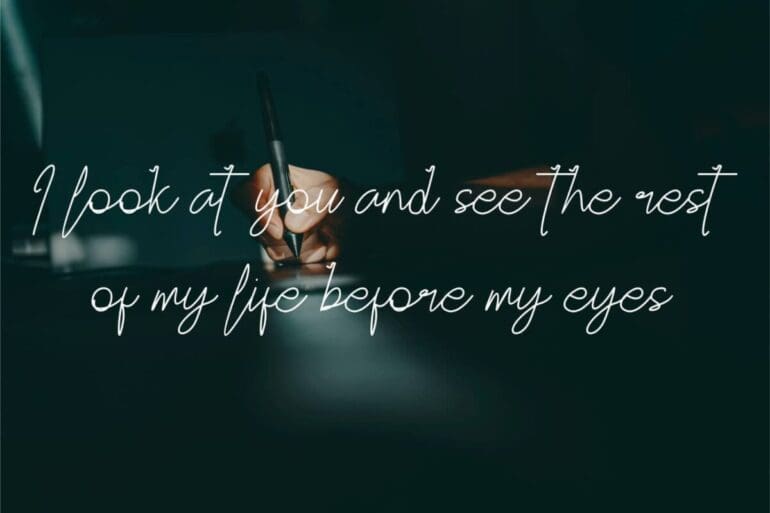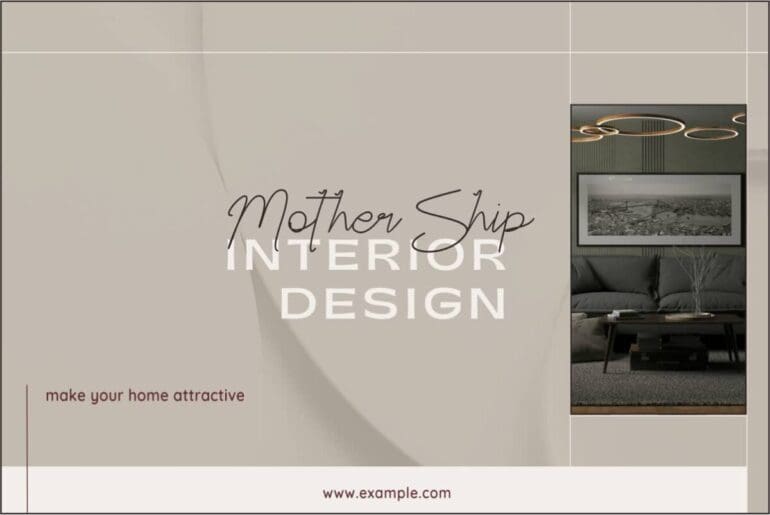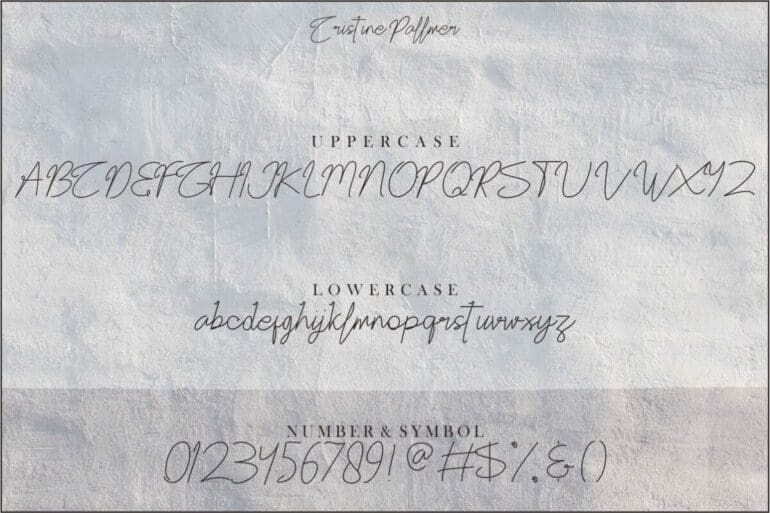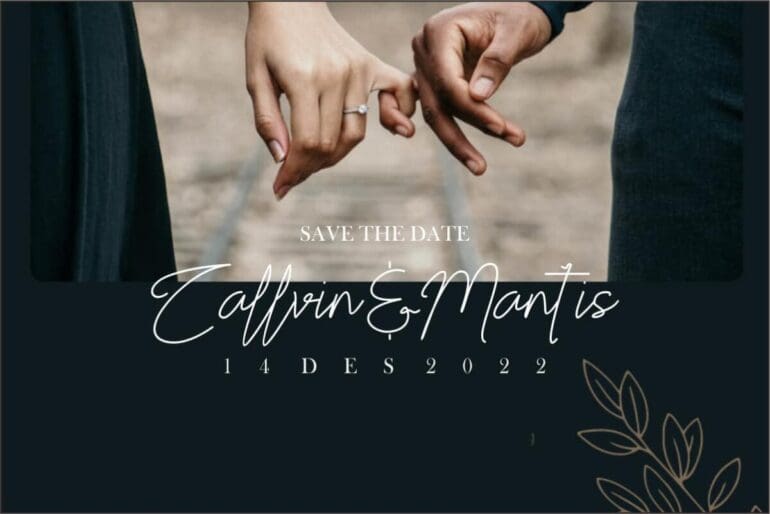
Christine Pallmer Font
Christine Pallmer this is Signature font. It’s perfect for your design such as logo, branding, graphic design, photography, product, packaging, social media posts, etc.